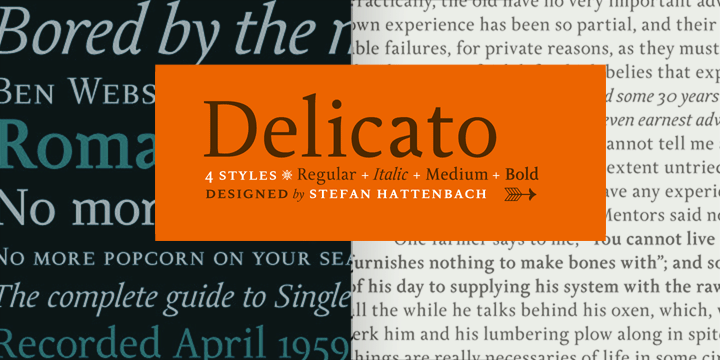
"After spending my early years experimenting mostly with display faces, my focus now is to make functional text fonts, incorporating both traditional and modern aspects.
Delicato is, in many aspects, built in a traditional way. Still, some modern details have been implemented which classic designs sometimes lack. The prime goal was to make a strong text font for books and longer texts in general. This fact does not exclude the possibilites for use elsewhere. More…
Throughout history existing designs have often been the source of inspiration for newer ones. Delicato is no exception and looking closely, similarities can be found in the lowercase of Jeremy Tankard’s Enigma and the stems of Petr van Blokland’s Proforma. My goal is to respect these sources and turn my own creation into something new with a unique and personal touch.
Most text faces carry a basic set of weights like regular, italic, bold and small caps. I wanted to expand that a little bit further and added a medium, alternates and a set of ornaments to make the family complete and versatile."
– Stefan Hattenbach –